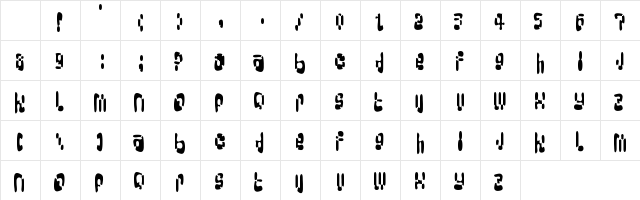
Complete Big Loada Splatter Regular glyph index. Displaying only characters natively supported by Big Loada Splatter Regular font.
Big Loada Splatter is a composed and adaptable typeface that performs quietly and consistently across a wide range of design contexts.